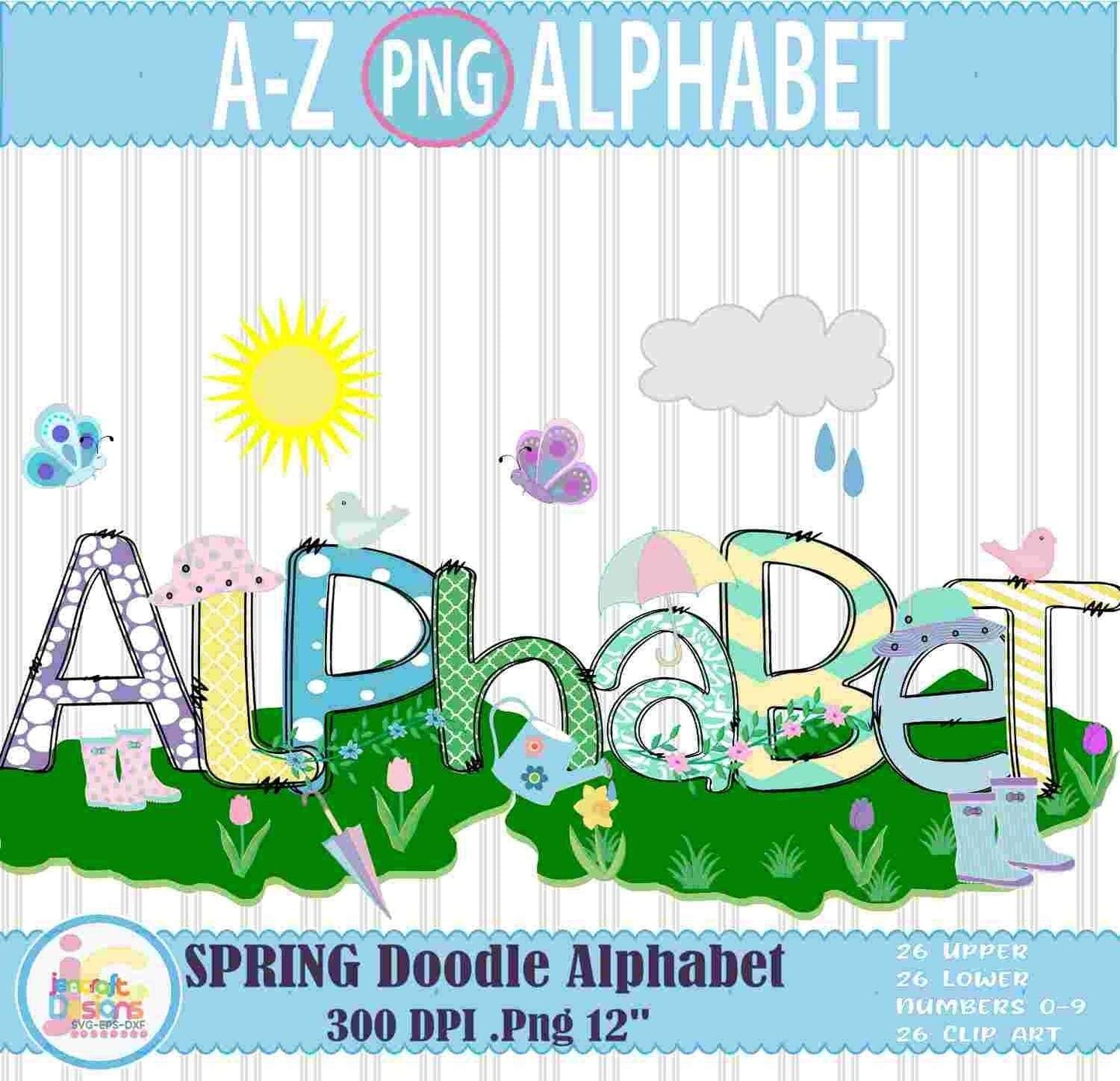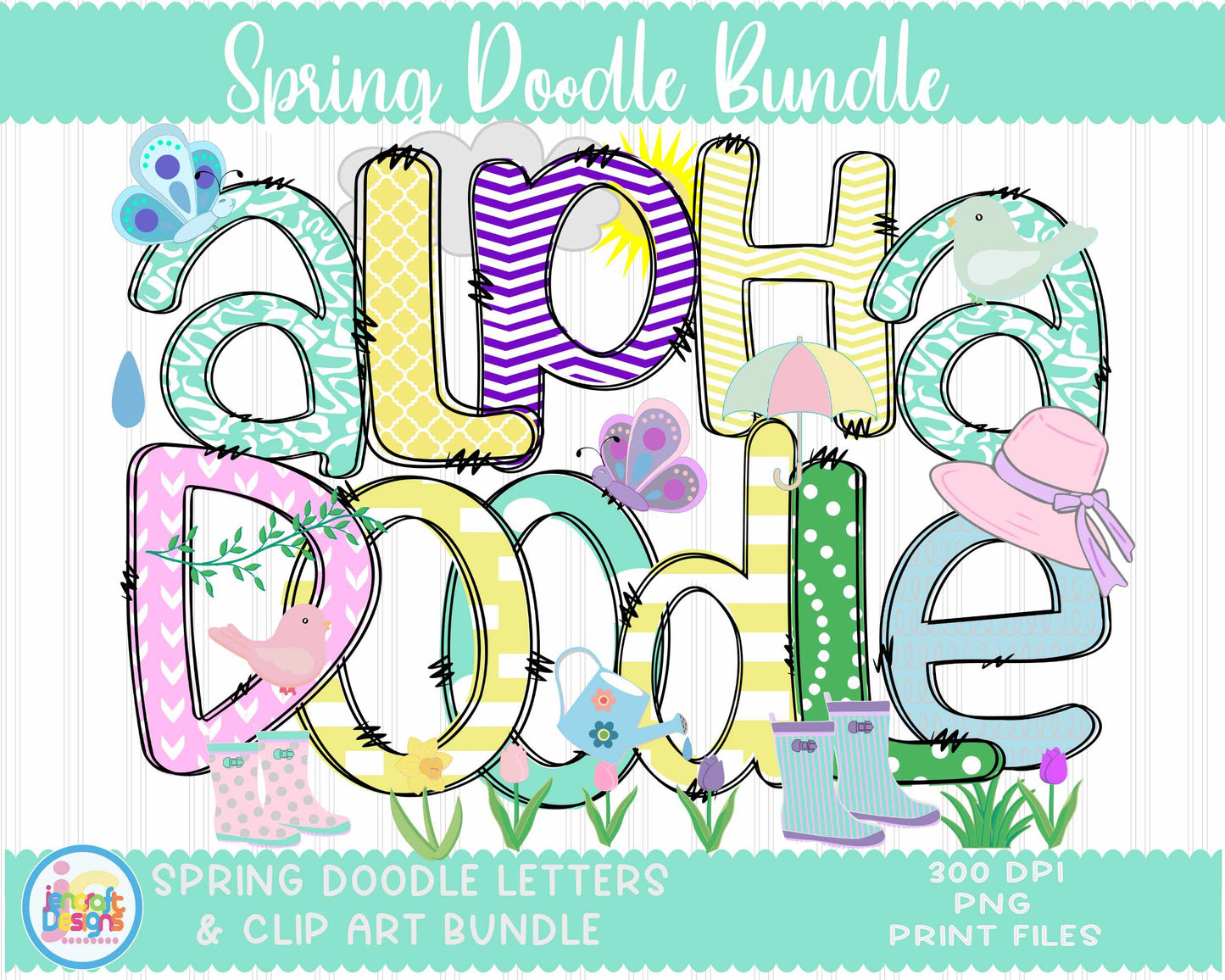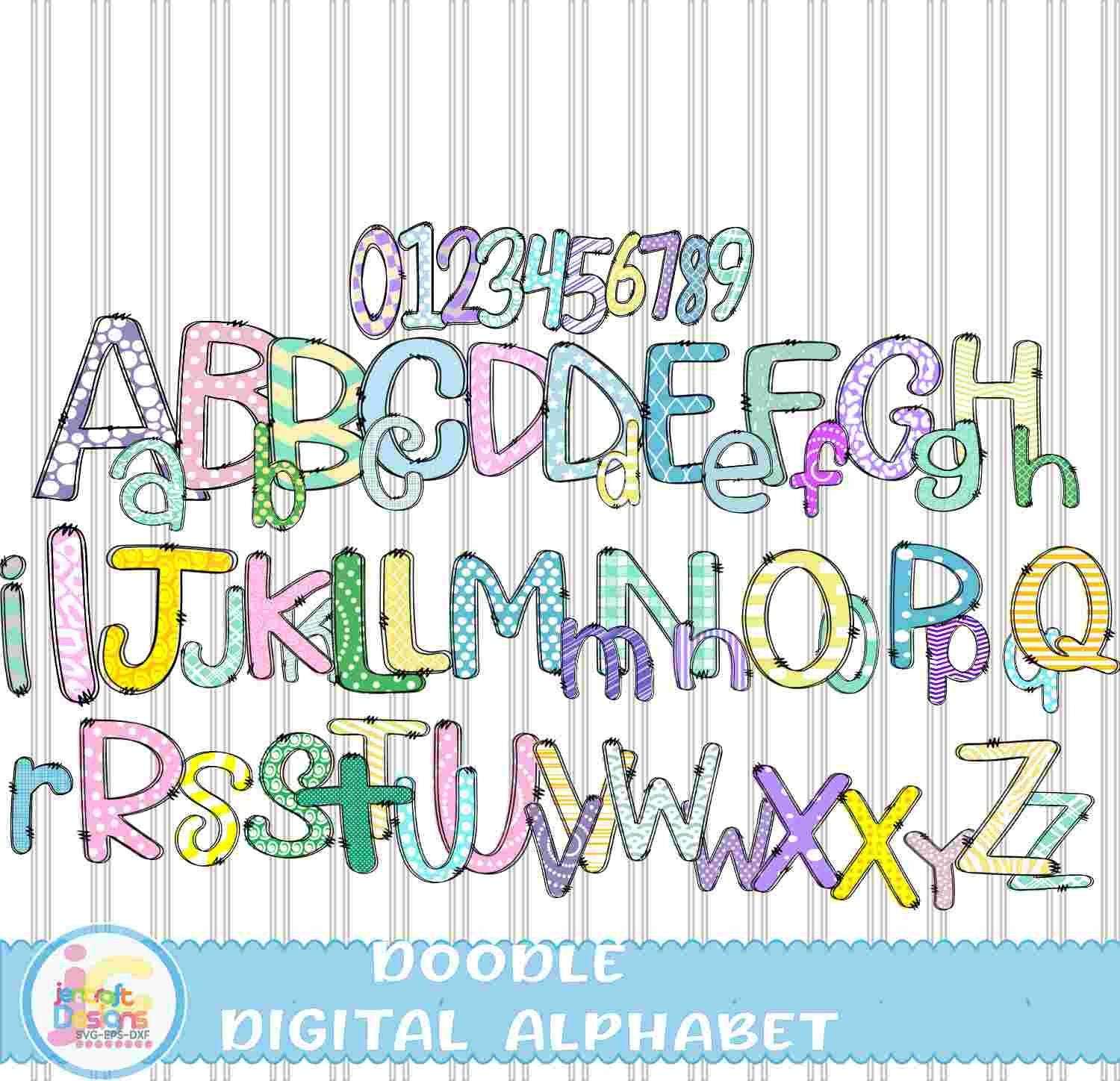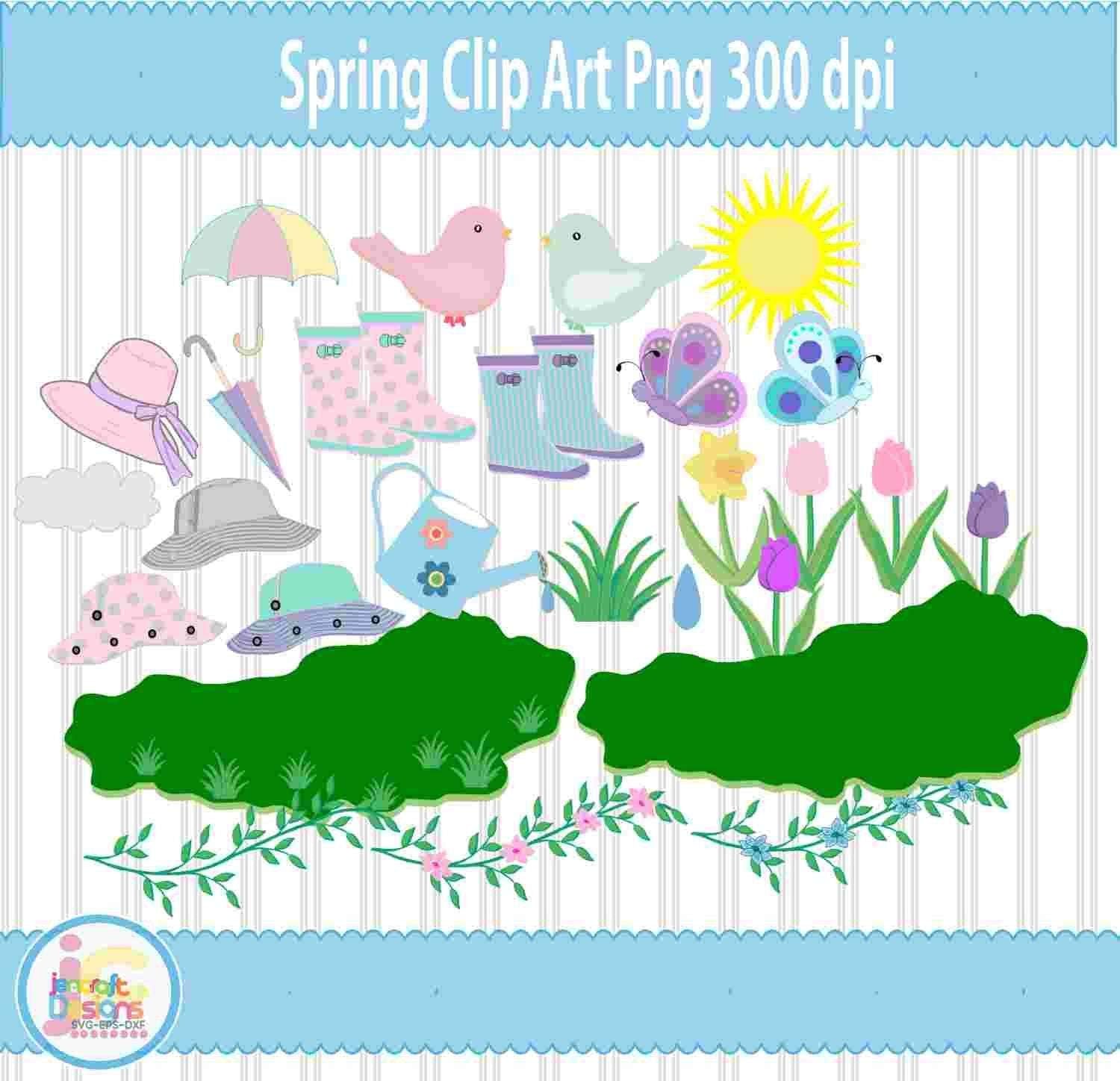
Spring Doodle Letters PNG | Spring Alphabet Sublimation Bundle
Brighten up your spring and summer projects with this charming Spring Doodle Letters PNG Sublimation Bundle — a hand-drawn alphabet pack featuring A–Z letters, numbers, and seasonal doodle accents perfect for personalized shirts, tumblers, and custom name designs. Instant digital download, ready to use right away!
- Full A–Z alphabet set with numbers